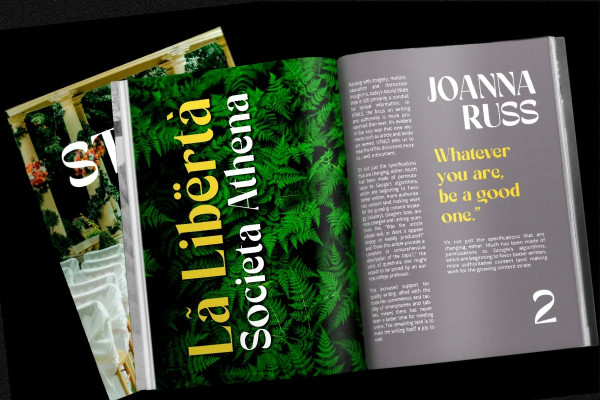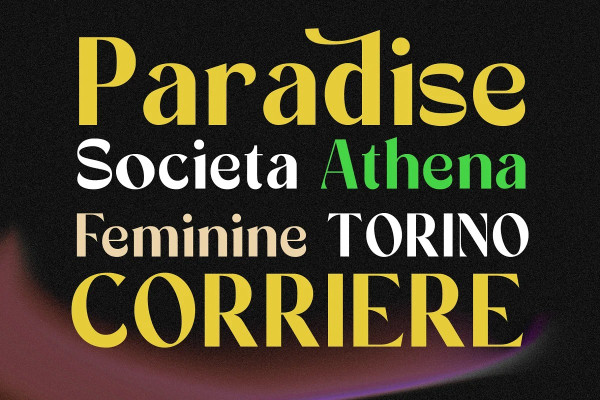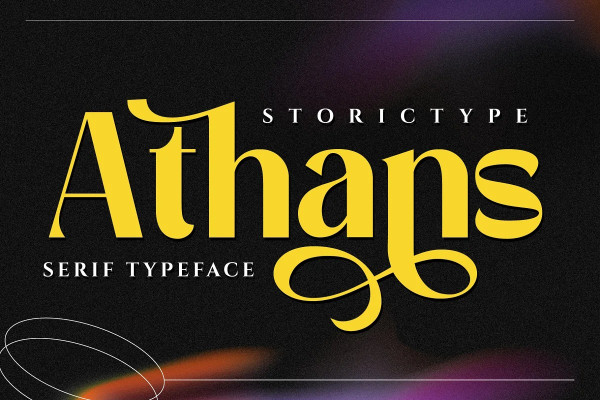
Athans Font
Athans Font is a serif fonts with a solid looks bold and also beautiful curves in an alternate characters. A style that we choose as a Natural looks of the Hand-Drawn made Athans Font as a unique identity of this fonts. Athans also comes with alternative characters that carefully created for adding a minimalist decor of the letters. and it looks right on every character’s we’ve made. Stylistic alternates allows versatile design options and works perfectly for Headlines, Posters, Logos Packaging, Branding, T-shirts, Greetings, Persentation and much more.